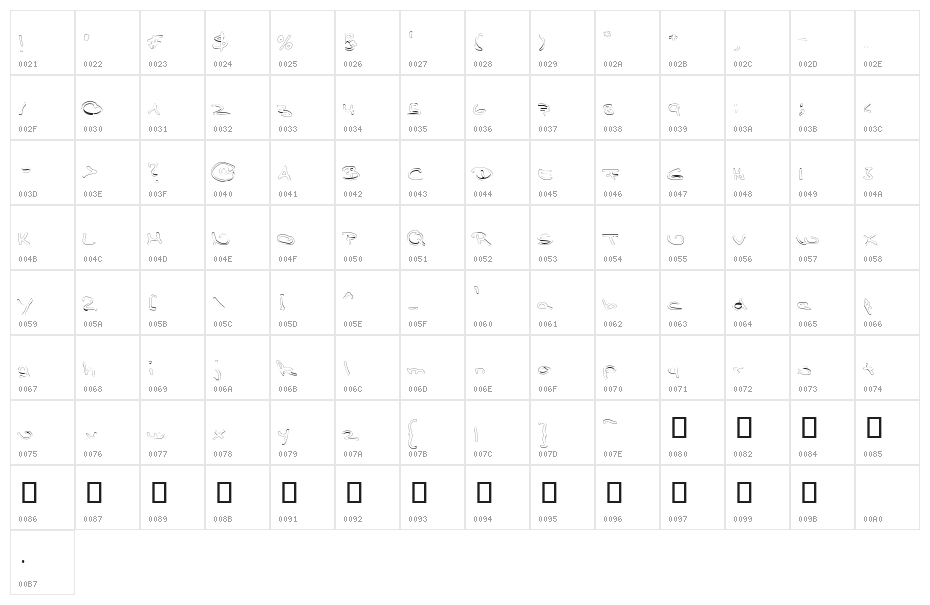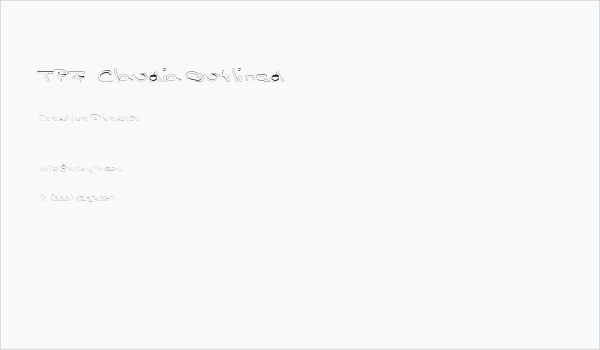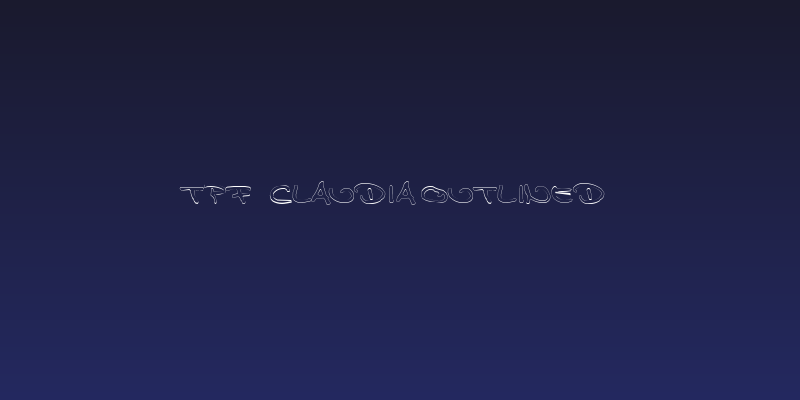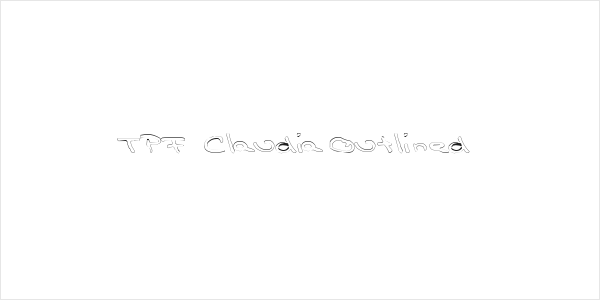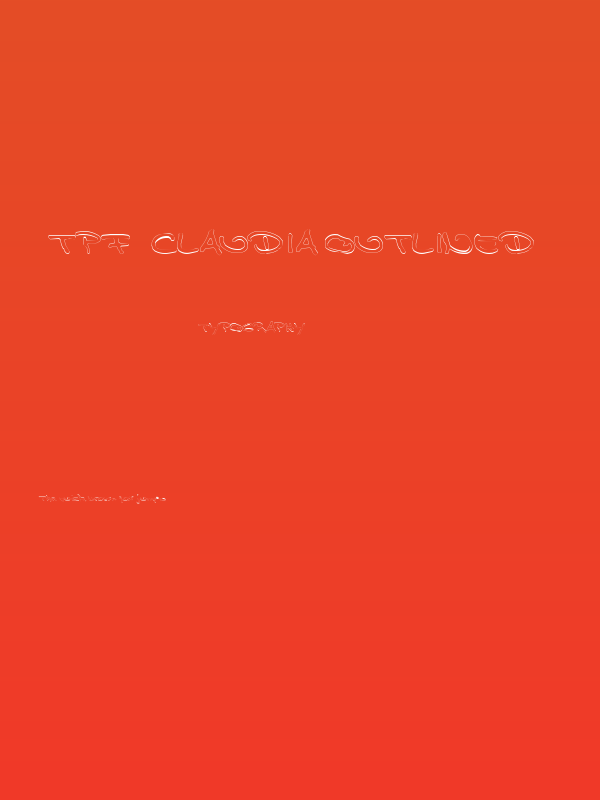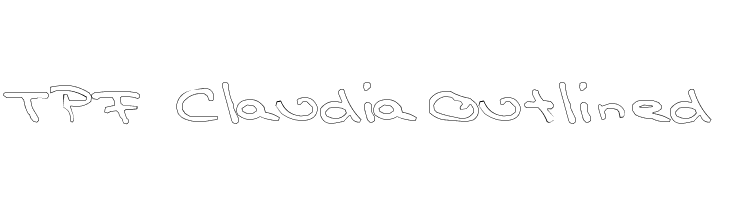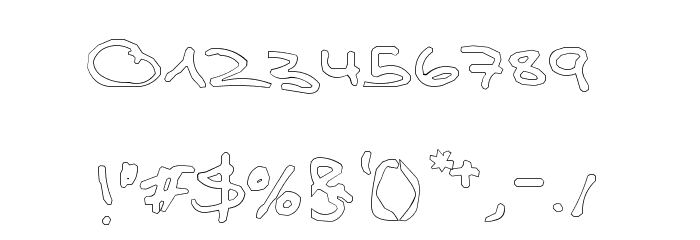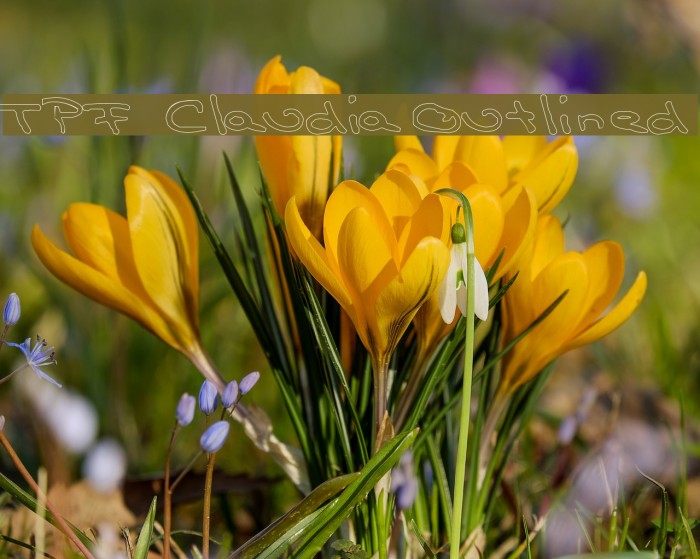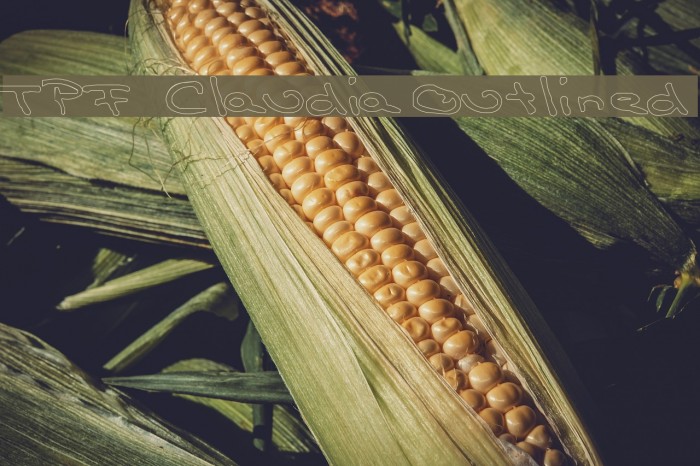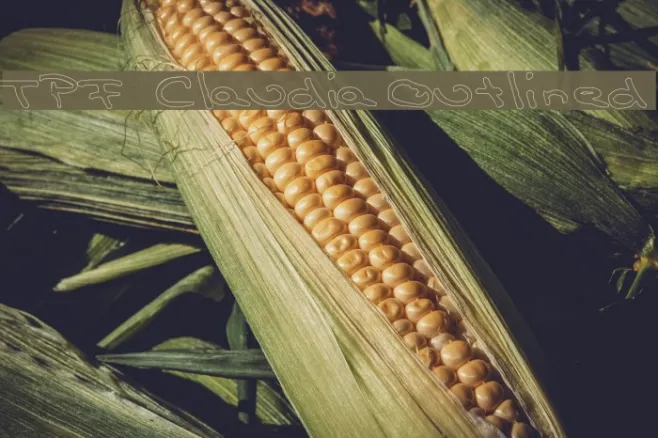
TPF Claudia Outlined Font
TPF Claudia Outlined Description
This font features an outlined, playful design with a hand-drawn aesthetic. The characters are crafted with a whimsical touch, giving them a unique and artistic flair. The uppercase and lowercase letters maintain a consistent style, with rounded edges and a slightly irregular form that adds to its charm. The numbers and special characters follow the same outlined style, ensuring uniformity across all elements. This font's distinctive look makes it stand out, perfect for creative projects that require a touch of personality and fun.
| Proposed Projects | Ideal for children's books, creative posters, playful branding, and artistic invitations. |